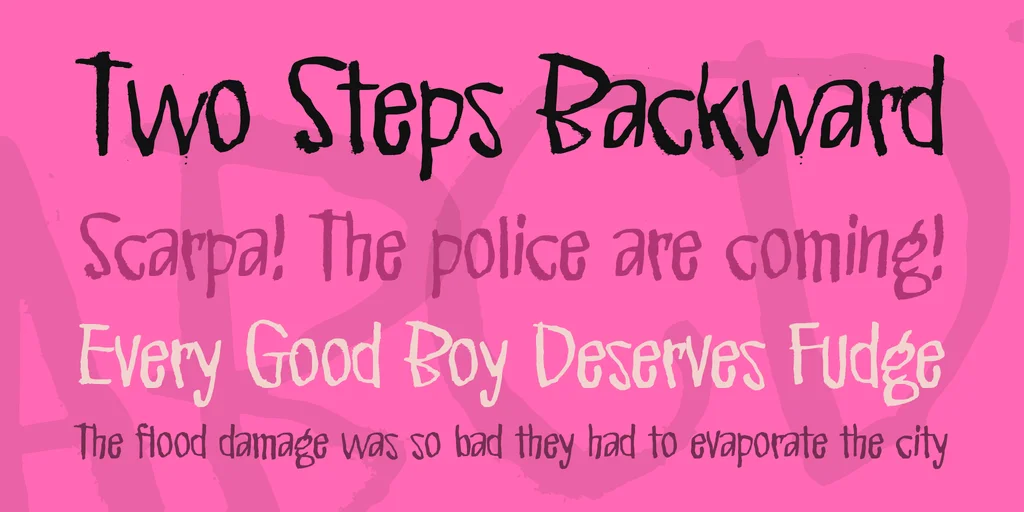
Pink Kangaroo Font
Pink Kangaroo Font is perfect for children's book illustrations, playful toy packaging, fun birthday invitations, colorful candy branding, kids' clothing labels, nursery decorations, educational materials, cartoon character designs, family-friendly restaurants, youth entertainment posters, creative craft projects, and whimsical social media graphics.
What makes Pink Kangaroo Font exciting is its irresistible playfulness that instantly brings joy and energy to any design project through bouncy letterforms and cheerful personality. This delightful typeface captures the essence of childhood wonder and playful adventure, combining vibrant character with friendly approachability that resonates with both children and adults. The font's distinctive bouncy style and whimsical curves create immediate emotional connection while maintaining excellent readability across various fun applications. Its energetic presence makes it perfect for brands targeting families and projects that need to communicate happiness, creativity, and positive energy.
The Pink Kangaroo Font family includes regular and bold weights, featuring playful alternates, bouncy variations, and fun decorative elements. The character set incorporates whimsical symbols, cheerful numerals, and expressive punctuation marks that enhance the font's joyful character and provide designers with extensive creative possibilities for playful design projects.
Whether you're creating children's brands, designing family entertainment materials, or developing fun marketing campaigns, Pink Kangaroo Font Free Download delivers the energetic charm your playful projects need to connect with audiences. This premium display font excels in applications where personality and memorability are crucial for brand recognition and emotional engagement with younger demographics. The font's cheerful aesthetic works beautifully across digital platforms and print media, making it an essential tool for designers creating engaging, family-oriented content. Entertainment companies and children's brands choose this font for its ability to convey fun and excitement while maintaining professional quality standards. The comprehensive character support includes international symbols, expanding its usability for global family entertainment applications and multilingual children's content. Professional designers appreciate its balance of playfulness and legibility, ensuring projects remain both visually delightful and highly readable. When you incorporate this exceptional typeface into your fun communications, you're selecting a typography solution that celebrates childhood joy and creates memorable brand experiences through vibrant, energetic design that stands out in competitive family markets and builds emotional connections with consumers seeking happiness and positive experiences.